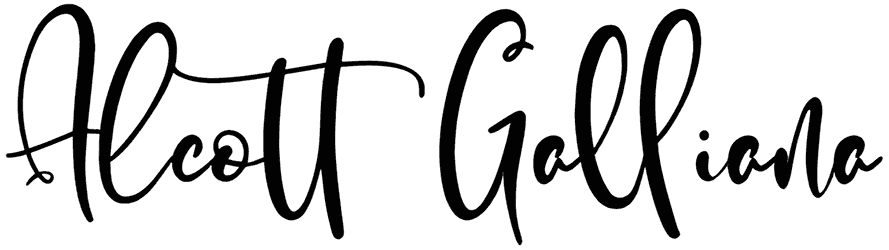
Alcott Galliana Font
You may get a unique impact and inject a sense of playfulness into your digital creations by making use of Alcott Galliana, a handwritten font that has a slightly unreadable appearance.